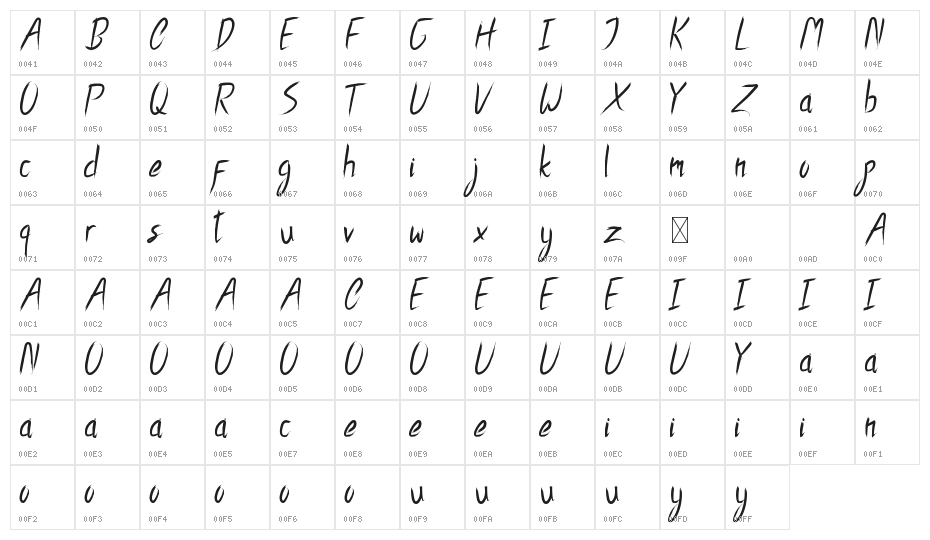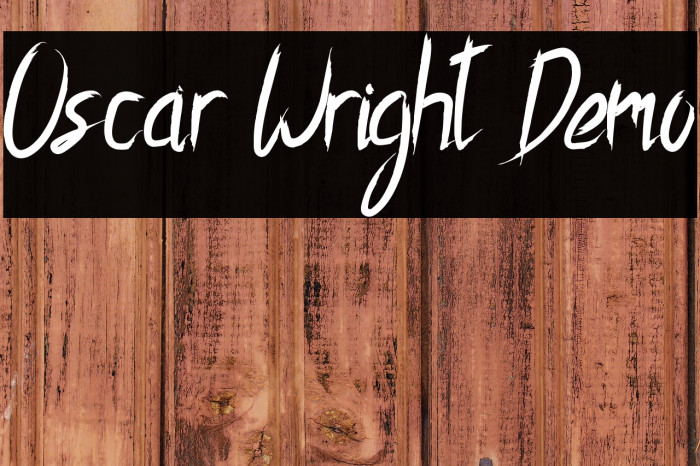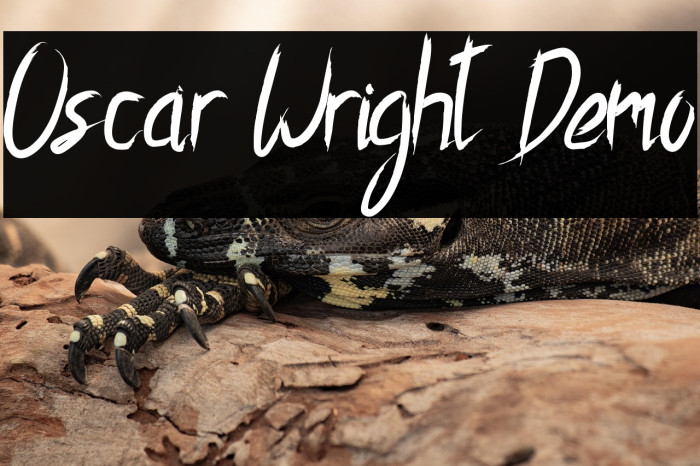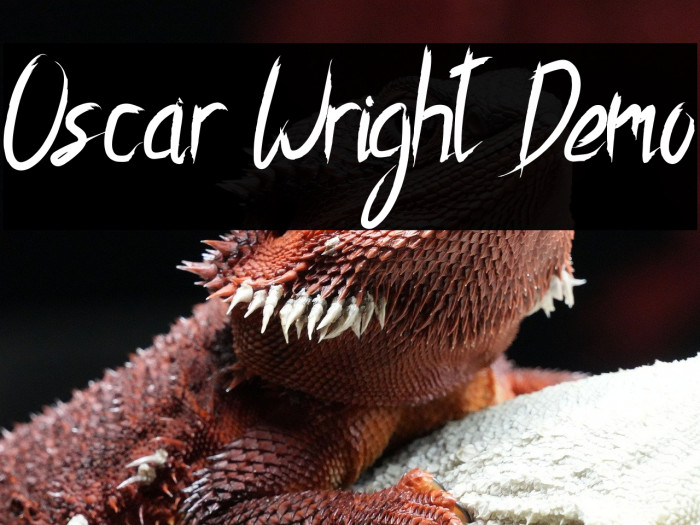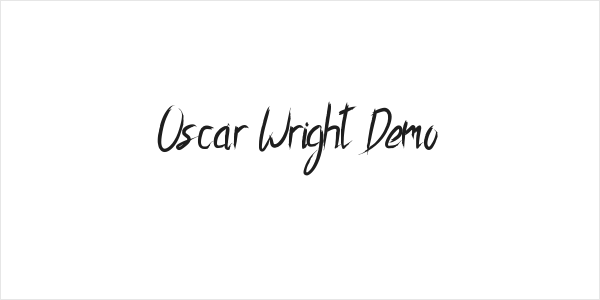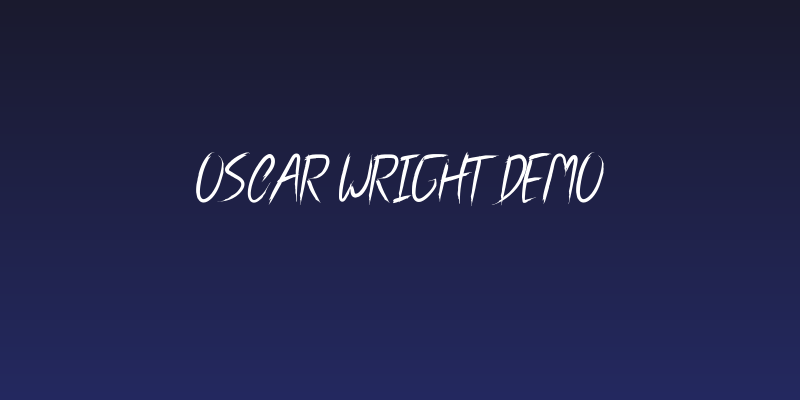
Oscar Wright Demo Font
Oscar Wright Demo Description
This font exhibits a dynamic and energetic style, characterized by its sharp, angular strokes and a brush-like appearance. The uppercase letters are bold and assertive, with a slight slant that adds a sense of motion and fluidity. The lowercase letters maintain this energetic feel, with elongated ascenders and descenders that enhance its expressive nature. The numerals and special characters are consistent with the overall aesthetic, featuring the same brush-like strokes and angular forms. This font's unique style makes it stand out, offering a modern twist on traditional script fonts.